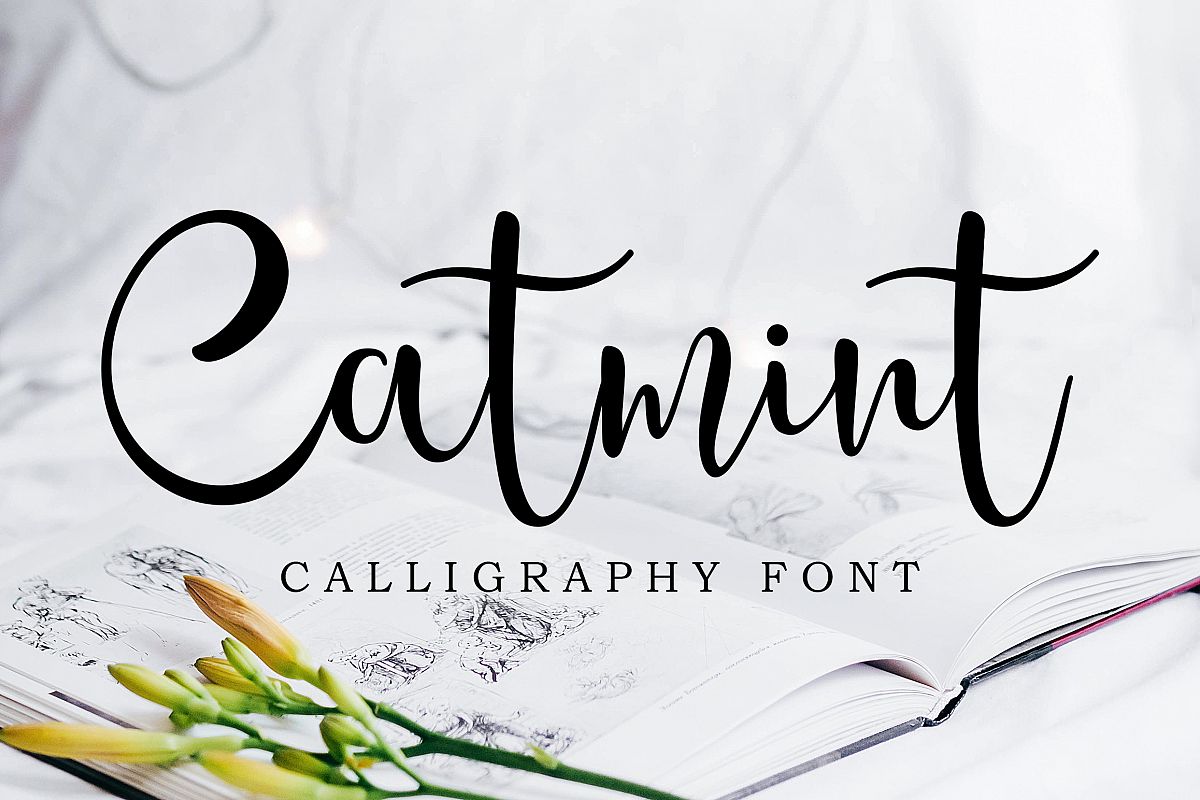
Catmint - handwritten calligraphy font
Catmint-Script
Catmint is a elegant calligraphy font. Perfect for branding projects, invitations, wedding decor, greeting cards, product packaging, decorative projects, DIY projects and much more!